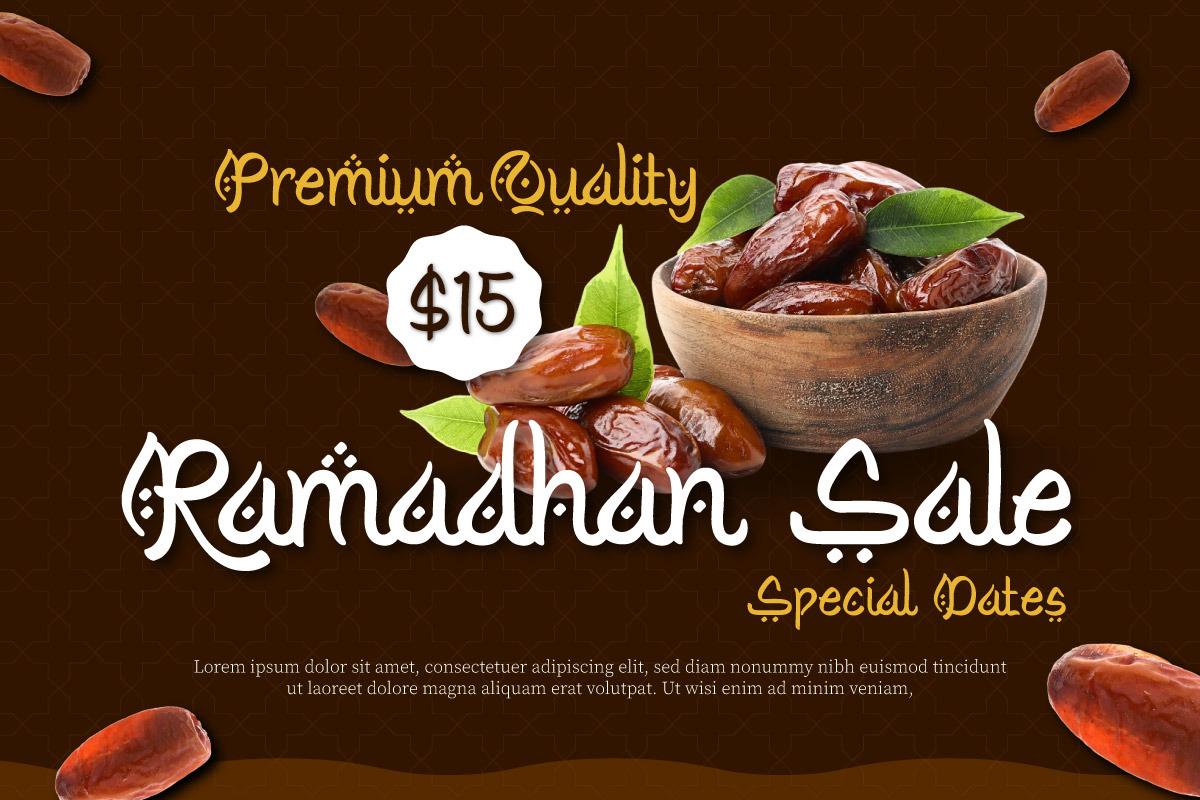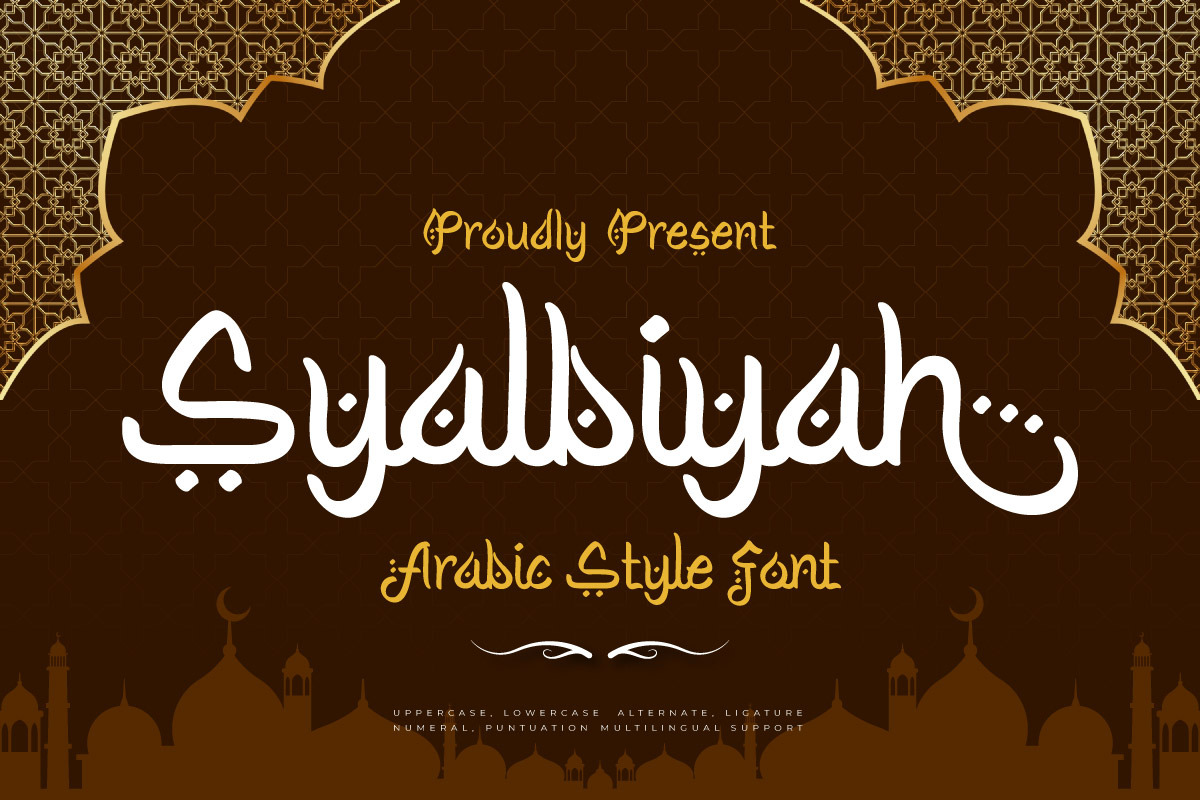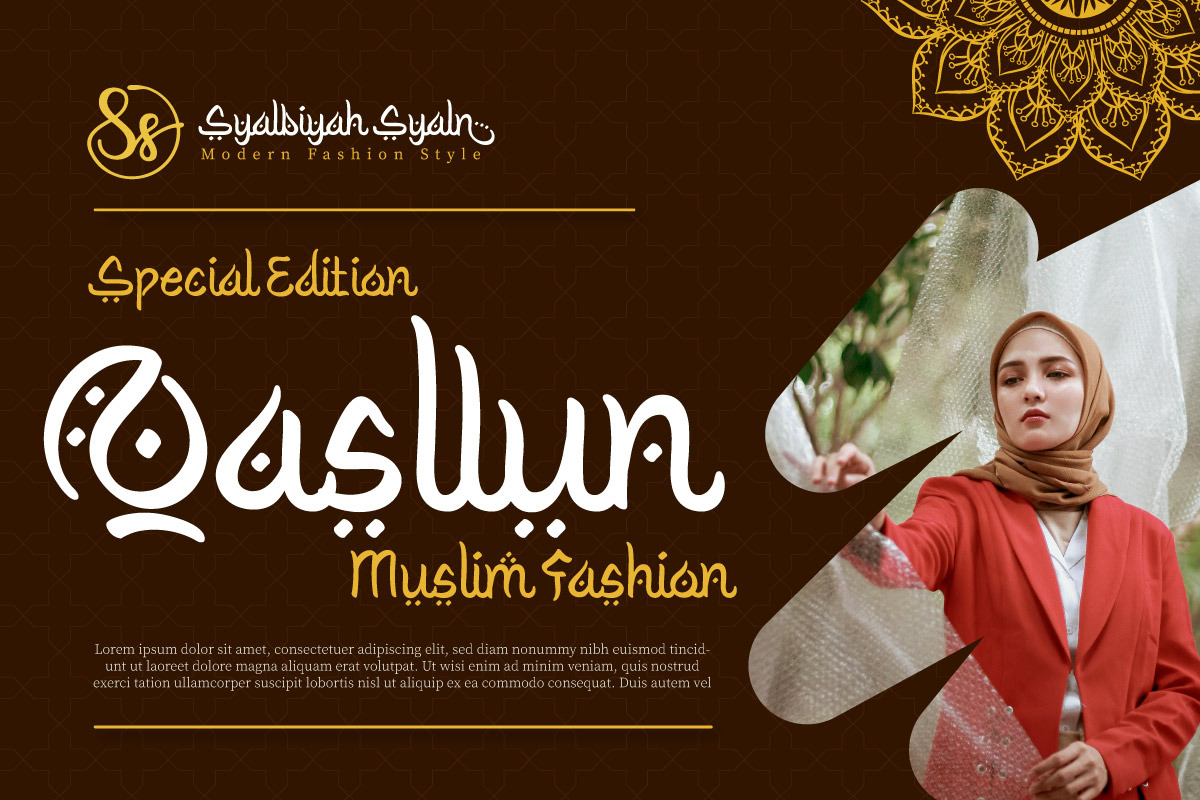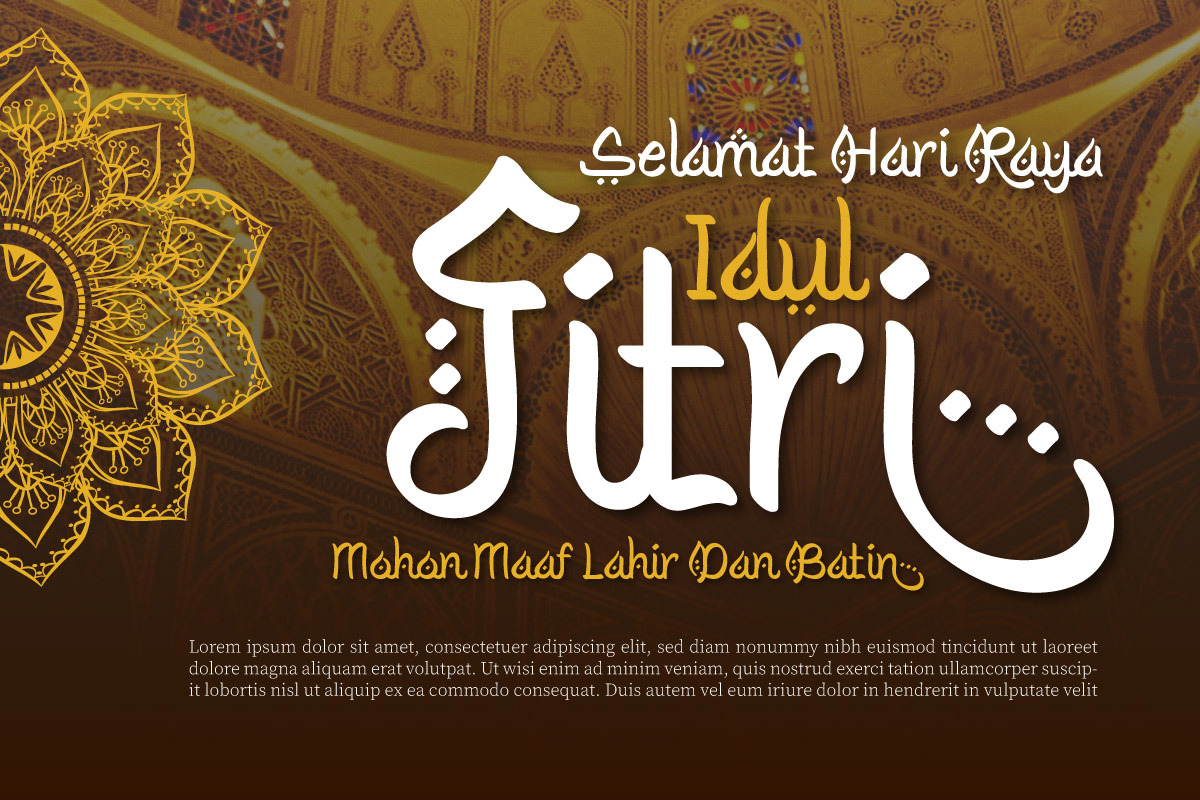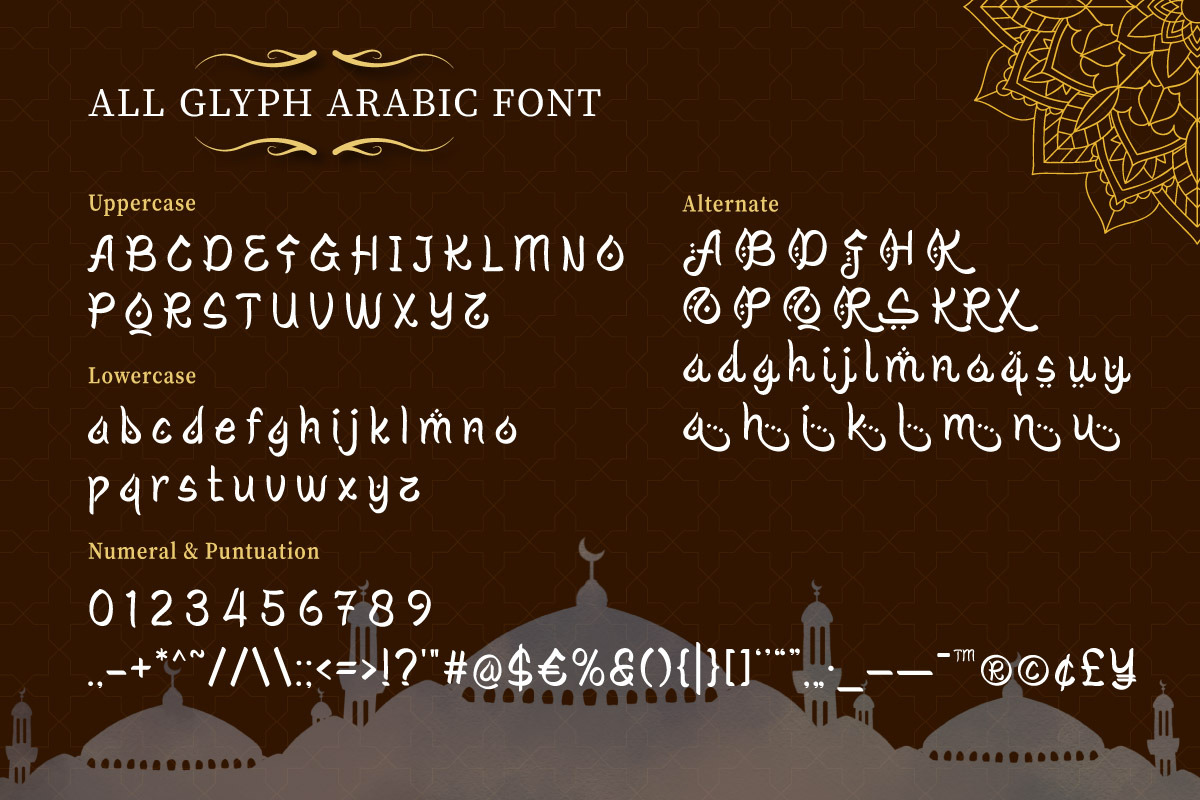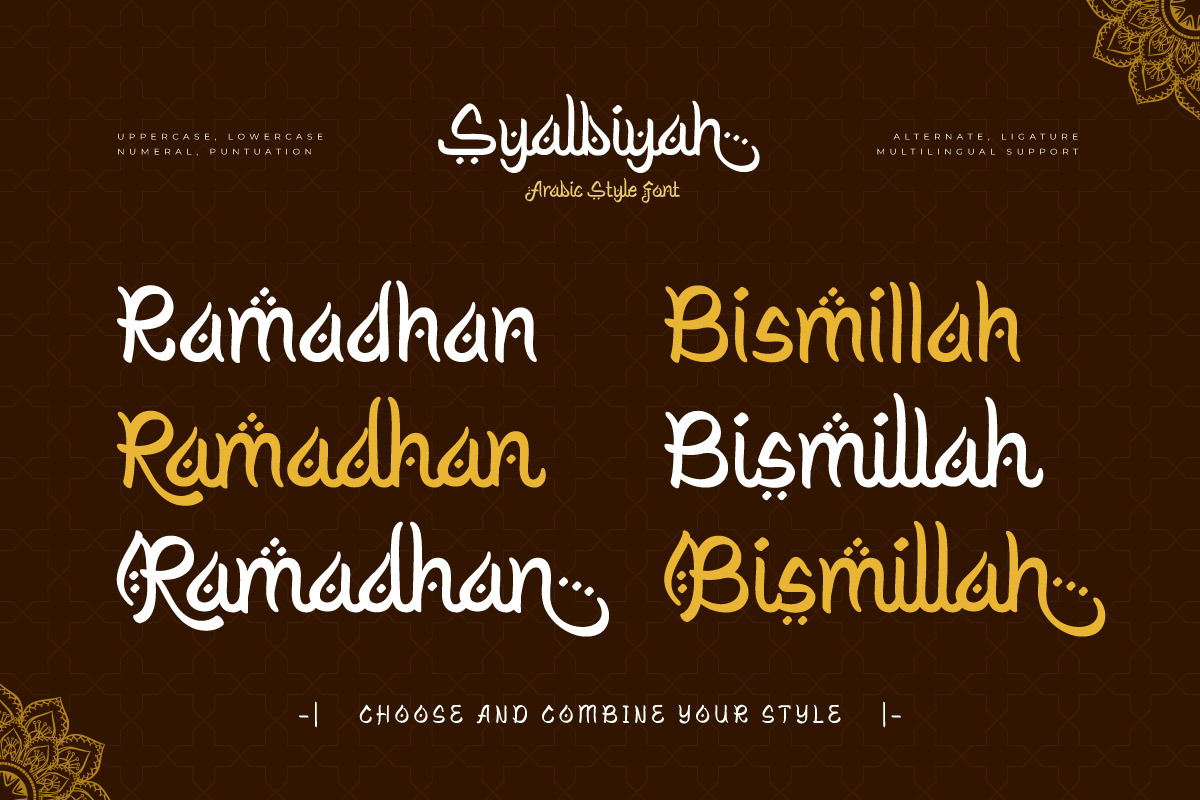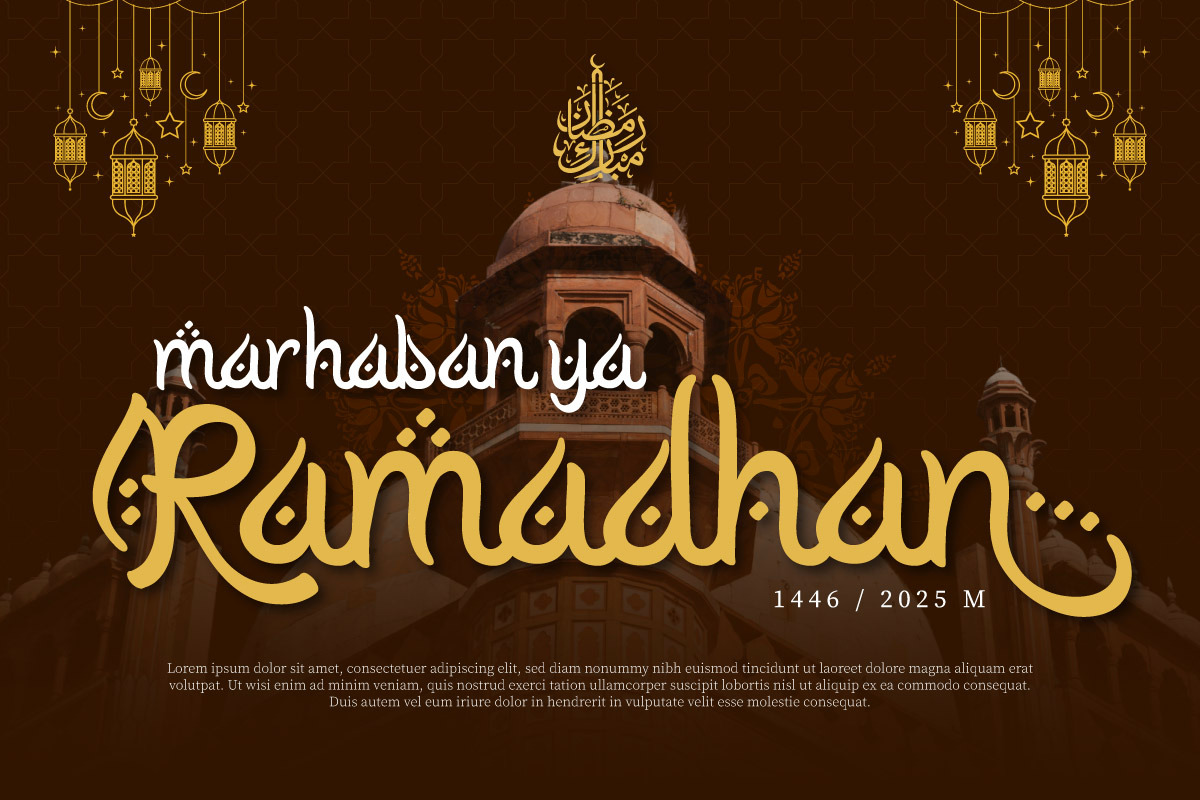
Syalbiyah - Arabic Style Font
Syalbiyah - Arabic Style Font is an elegant and beautifully crafted typeface that blends traditional Arabic calligraphy with a modern touch. Its graceful and flowing letterforms make it perfect for branding, invitations, posters, and any project that aims to capture the essence of Arabic culture with a refined, contemporary style. Syalbiyah is designed to be both visually captivating and highly readable, making it suitable for a wide range of applications.